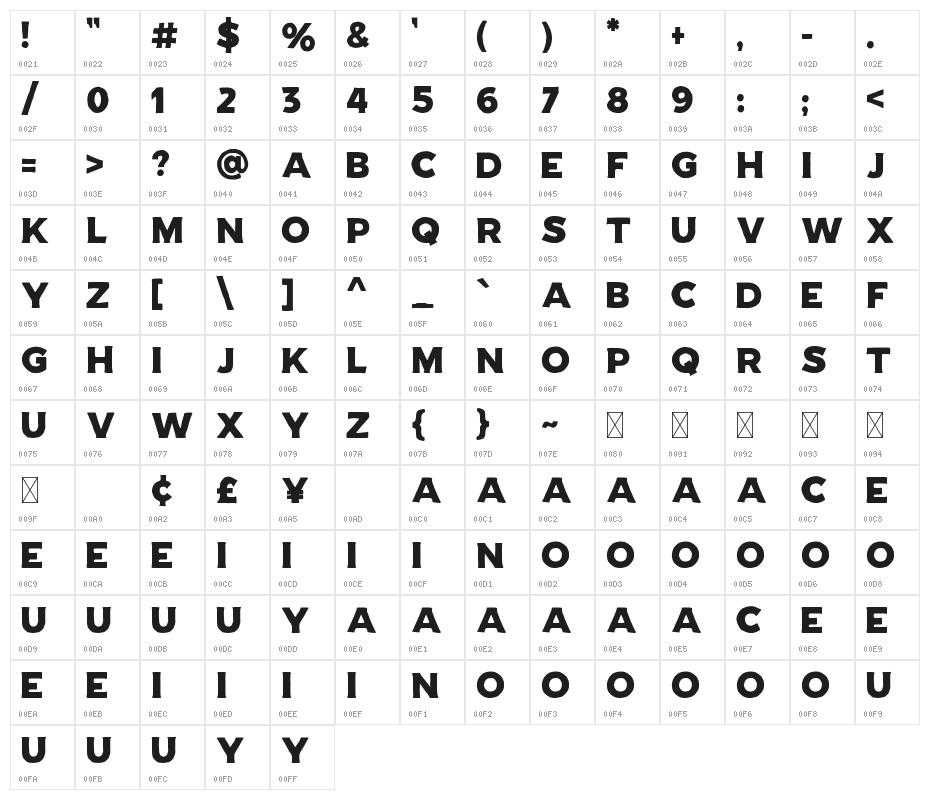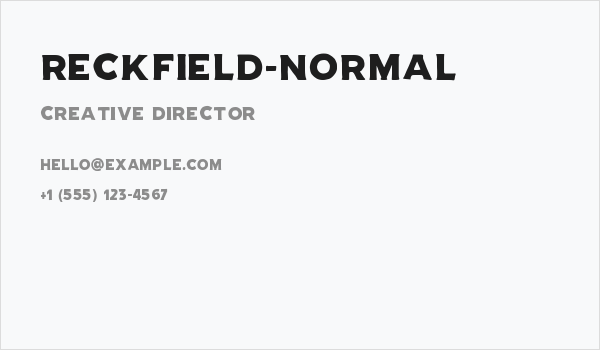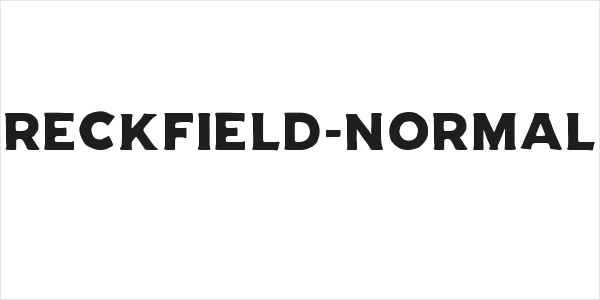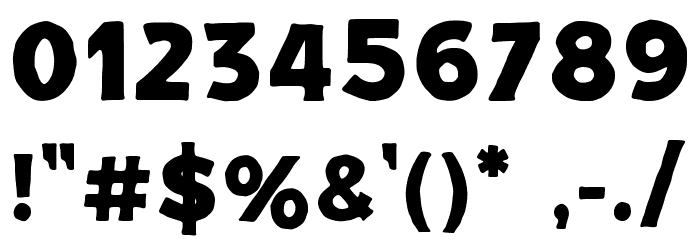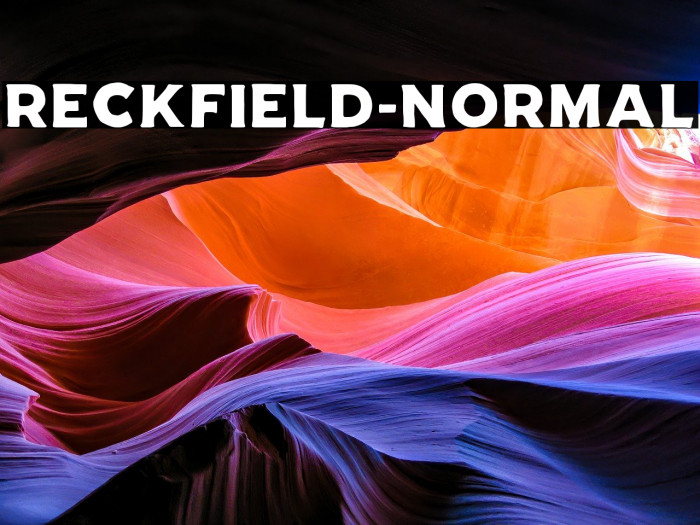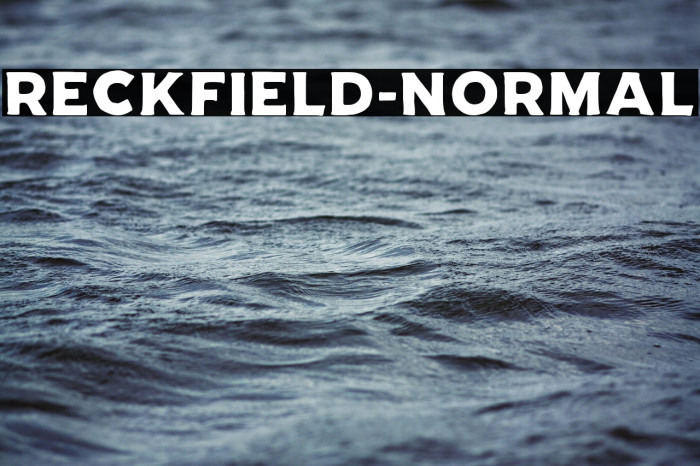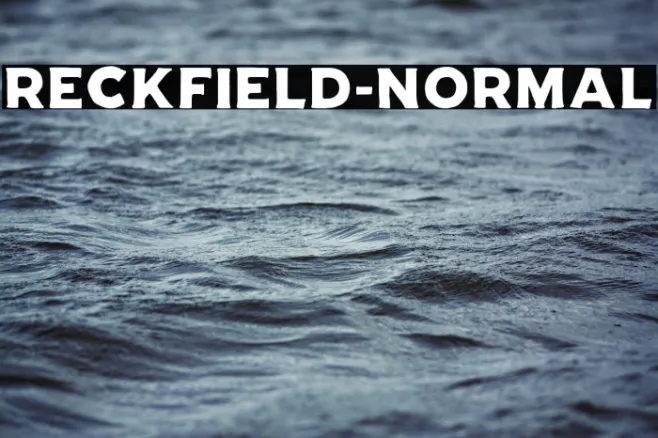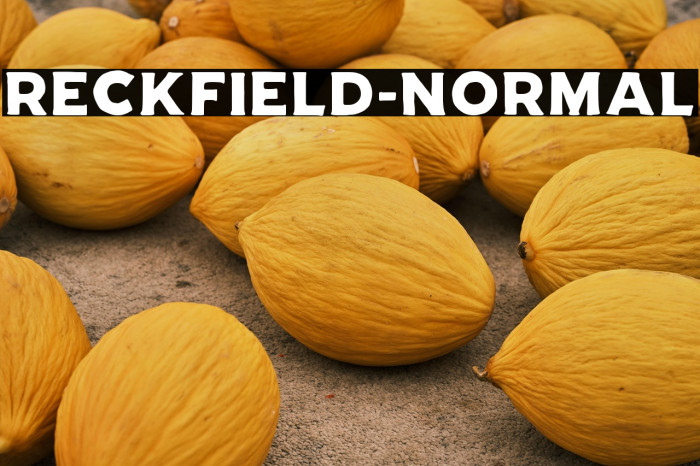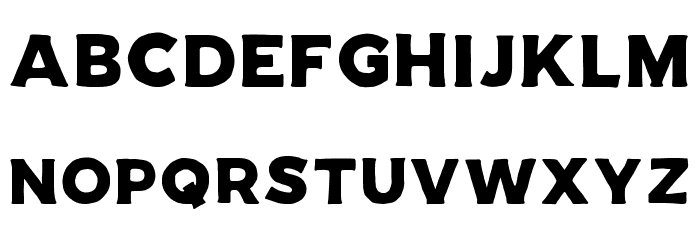
RECKFIELD-NORMAL Font
RECKFIELD-NORMAL Description
This font features bold, uppercase letters with a strong presence and a slightly condensed style. The characters are uniformly thick, giving them a robust and impactful appearance. The numbers and special characters maintain the same boldness, ensuring consistency across all glyphs. The font's design is straightforward, with clean lines and minimal embellishments, making it versatile for various applications. Its bold nature makes it suitable for attention-grabbing headlines or titles, while the uniformity in character width and spacing ensures readability.
| Proposed Projects | Ideal for headlines, posters, branding materials, and any design requiring a strong visual impact. |